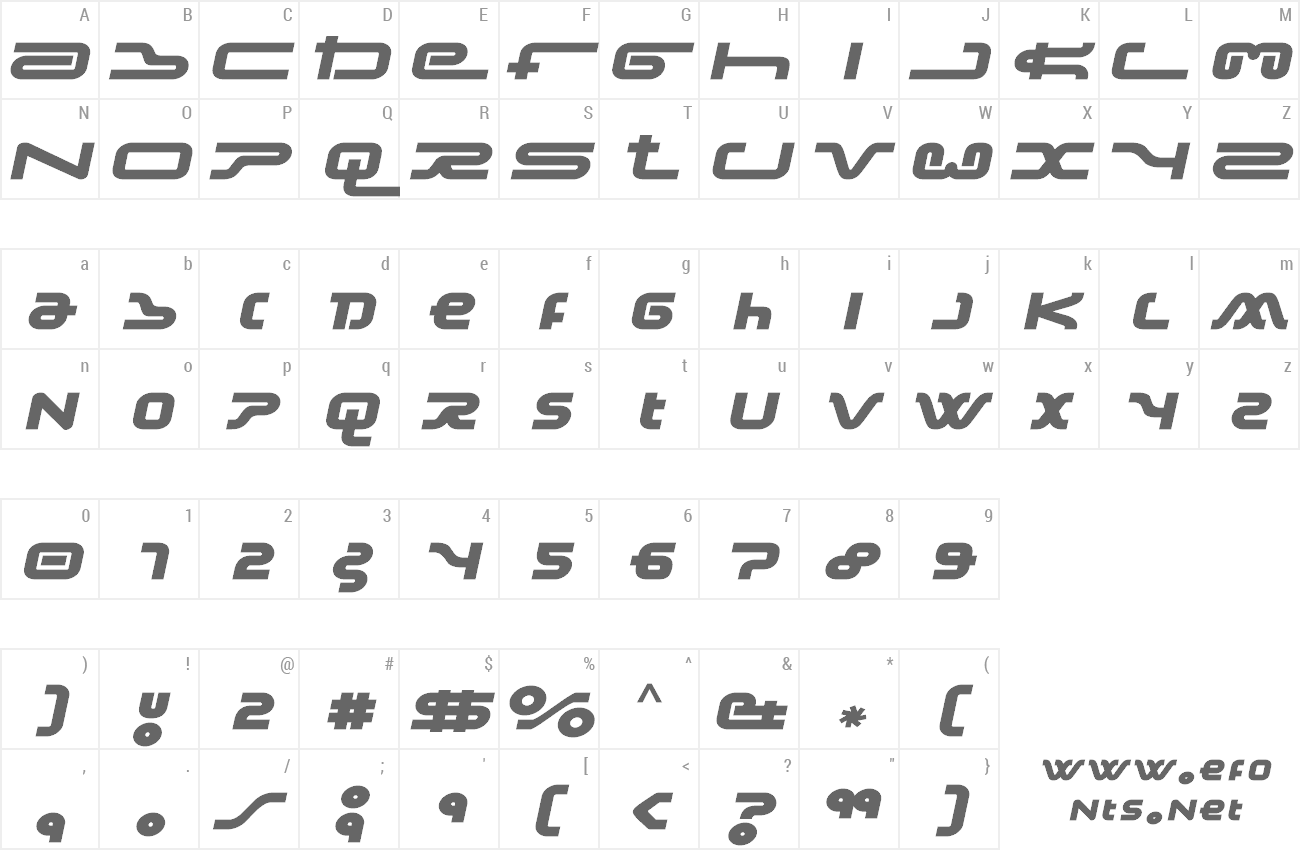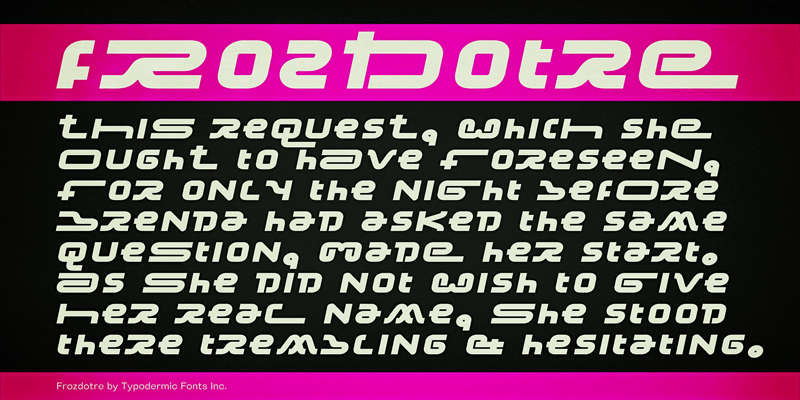
Preview and download Frozedotre Font. Created by Typodermic Fonts in Techno Various styles with 100% Free license.
Frozdotre is a wide, mid 1990’s style methodological display font. This font includes a license that allows free commercial use: sometimes referred to as a desktop license. This allows you to install the font on a computer and use it to create posters, web graphics, game graphics, t-shirts, videos, signs, logos and more. Read the license agreement for details. If you'd like to embed this font in an app, ebook, on the web or anything that's not covered by the desktop license agreement, visit the link below. You'll find distributors who offer different types of licenses or you can contact me for help. http://typodermicfonts.com/frozdotre/ |